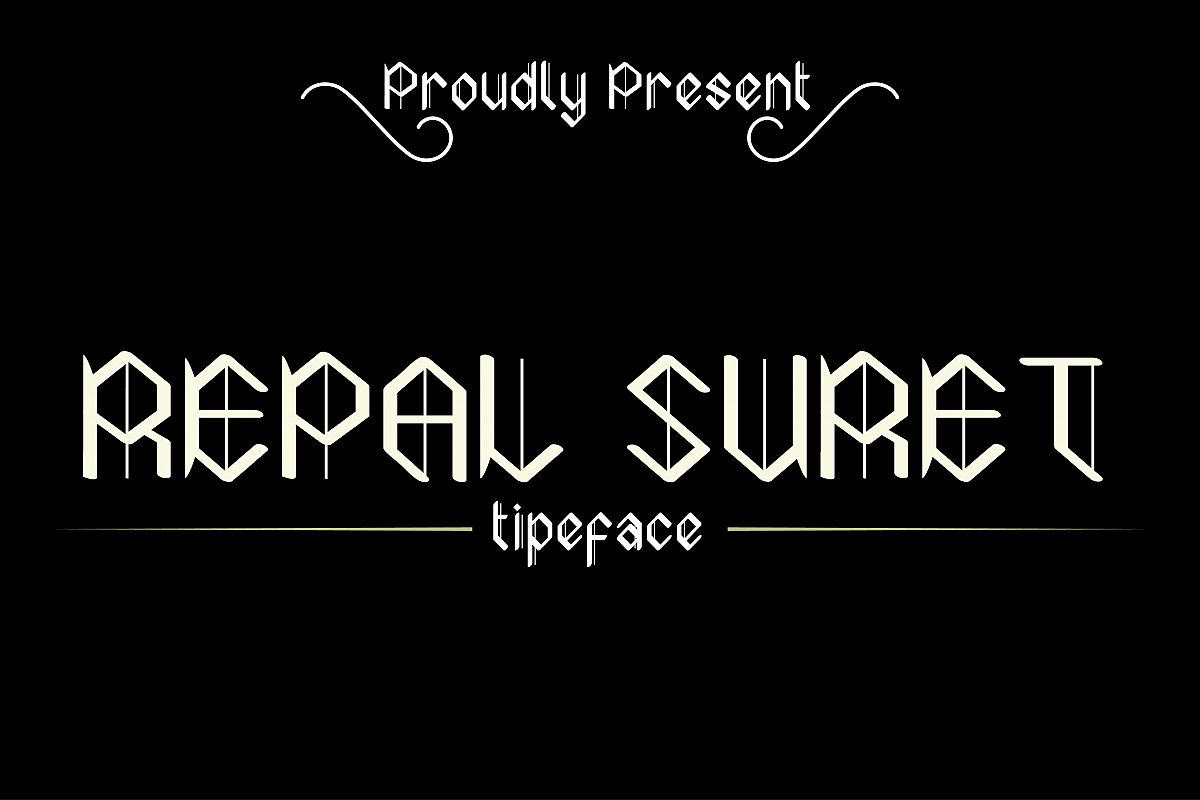
REPAL SURET
repal suret is typeface is new font from harizandy st, new typeface with classy, elegant and vintage feel character set. This typeface includes a full set of capital and lowercase letters, as well as multi-lingual support, currency figures, numerals, and punctuation.